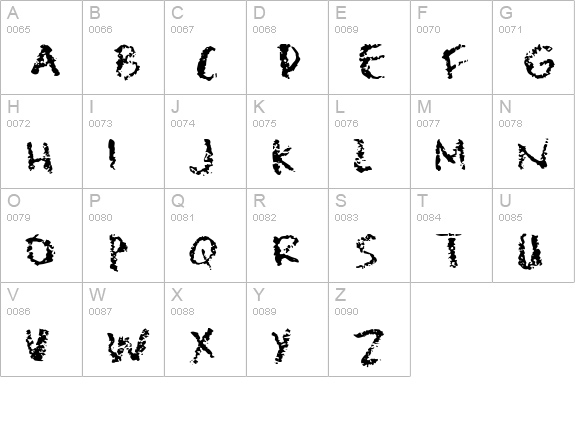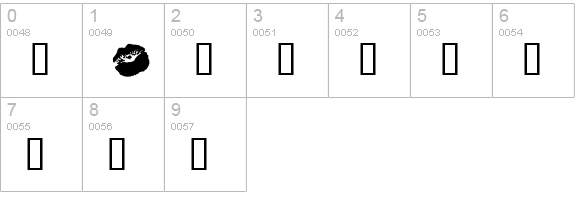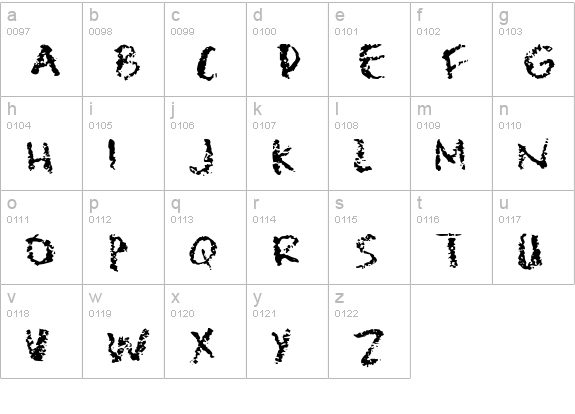
Lipstick Traces Font Details
Lipstick Traces is a whimsical and artistic font that exudes charm and creativity. Its hand-drawn style gives off a unique and playful vibe, perfect for adding a touch of personality to your designs. The irregular lines and quirky flair of this font make it stand out from the crowd, making it ideal for projects that need a fun and casual touch. Best of all, Lipstick Traces is available for free download at FontsMarket.com. This means you can easily access this delightful font and use it in your projects without any cost. Whether you're designing invitations, posters, or social media graphics, Lipstick Traces will bring a pop of personality and style to your work. Download it today and let your creativity shine with this charming and free-spirited font.